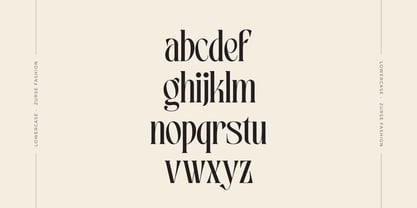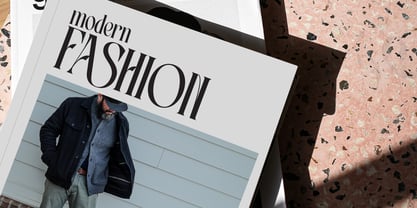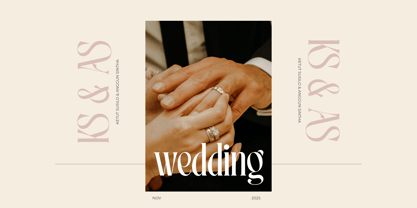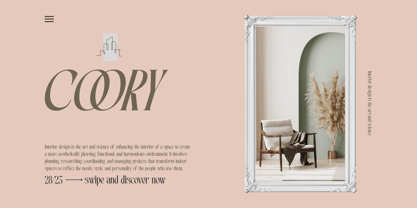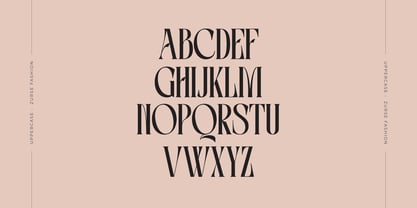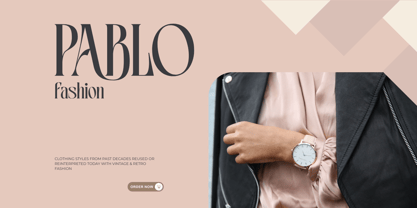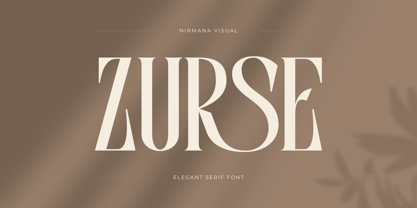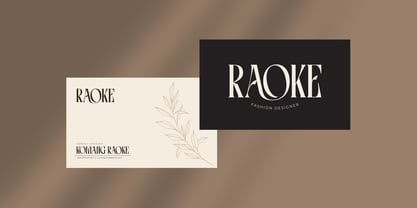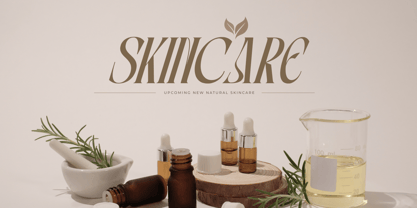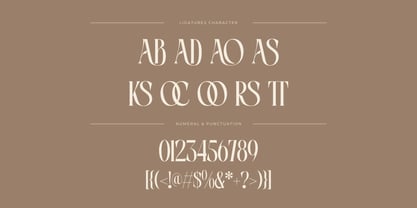
Zurse Fashion
by Nirmana Visual
The Zurse Fashion Font Family was designed by Sigit Dwipa and published by Nirmana Visual. Zurse Fashion contains 2 styles and family package options. More about this family
Zurse is a stylish and modern fashion font designed to elevate your brand identity. With its sleek lines and elegant curves, Zurse adds a touch of luxury and sophistication to any project. Perfect for fashion labels, logos, websites, and editorial designs, it captures attention with minimal effort. Zurse blends contemporary style with timeless appeal, making it the go-to choice for brands that want to stand out with confidence and flair.